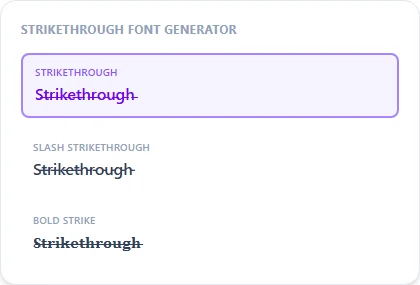
Strikethrough Text Generator
This strikethrough text generator strikes through your words using a real Unicode combining character (U+0336, 'combining long stroke overlay') rather than HTML's <s> or <del> tag, so the crossed-out line survives copy-paste into places that strip formatting, like Instagram captions and Discord messages. That's the same trick people search for as 'strikethrough font generator,' 'cross out font generator,' or 'crossout font generator.'
Plain Strikethrough draws a straight horizontal line through each letter; Slash Strikethrough swaps in a diagonal mark (U+0335) for a more handwritten, crossed-off look; Bold Strike pairs the line with bold Unicode letters for a heavier, more deliberate 'redacted' feel.
Strikethrough Text Generator style examples: Strikethrough, Slash Strikethrough, Bold Strike, rendered on the word "Strikethrough"
A combining mark, not a formatting toggle
Normal strikethrough formatting (a markdown ~~tilde~~ wrapper, or an HTML <s> tag) is a style attribute layered on top of plain letters. Strip the formatting and the line disappears. This generator instead inserts a real Unicode combining long stroke overlay character (U+0336) after each letter, a genuinely different character sequence, not a visual effect. Because there's no formatting to lose, the line survives copy-paste into Instagram captions, Discord messages, and anywhere else plain text goes, including apps that don't support markdown or rich text at all.
Straight line, diagonal slash, or bold
Plain Strikethrough uses a straight horizontal line and reads cleanly at any size. Slash Strikethrough swaps in a diagonal combining mark (U+0335) instead, closer to a handwritten cross-out than a typeset line. Bold Strike combines the standard line with bold Unicode letters for extra weight, and Glitch Slash layers the diagonal mark over distorted glitch text for a rougher, more chaotic cross-out.
Is this a real strikethrough, or a formatting trick?
It's a real Unicode combining character (U+0336, 'combining long stroke overlay') attached to each letter — not markdown or HTML formatting, which is exactly why it survives copy-paste into places that strip formatting.
Does strikethrough text work on Instagram, Discord, and TikTok?
Yes — it's plain Unicode text, so it pastes the same way into any bio, caption, comment, or message field on any platform, even ones that don't support markdown's ~~strikethrough~~ syntax.
What's the difference between 'cross out,' 'crossed out,' and 'strikethrough'?
They're the same request worded differently — this page covers all three, along with 'crossout font generator.'
What's the difference between Strikethrough and Slash Strikethrough?
Strikethrough draws a straight horizontal line through each letter; Slash Strikethrough uses a diagonal mark instead, closer to a handwritten cross-out.
Why does the line sometimes look uneven or gappy?
Combining marks are positioned by whatever font renders them, and spacing can vary slightly between letters depending on the device or app — this is a font-rendering quirk shared by every strikethrough text generator, not something specific to this tool.
Can I combine strikethrough with bold or glitch text?
Yes, Bold Strike pairs the line with bold letters for extra weight, and Glitch Slash layers the diagonal mark over distorted glitch text for a rougher look.